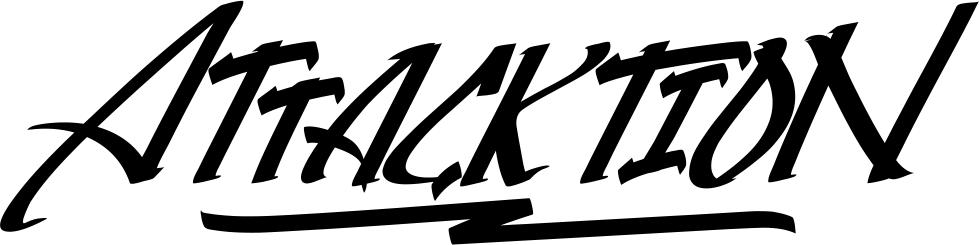
Attacktion Font
If you are looking for a cool and punk look for your texts, this 80s script font might put an end to your search. Attacktion is a typeface with two fonts that have a handwritten illusion and the continuous character design makes it more lively.
You can use it for event promotions, product names, and movie titles. This graffiti font doesn’t have numerals and only has capitals so it is perfect for headlines.